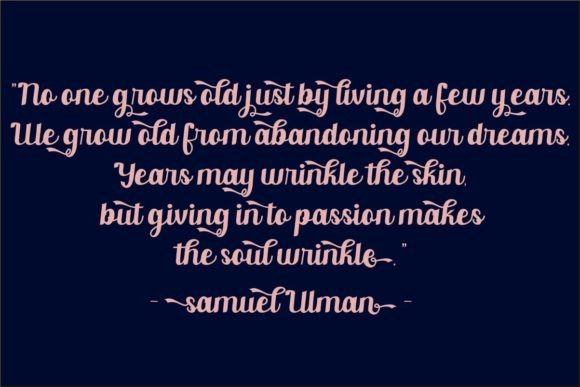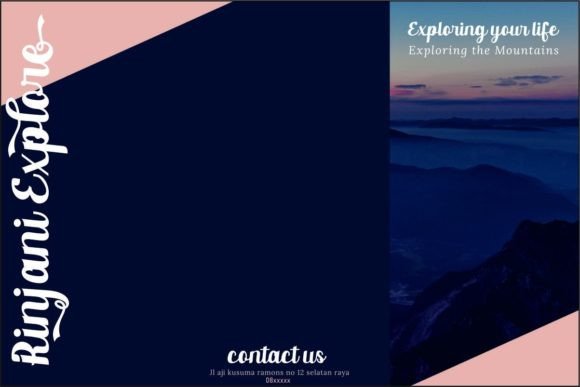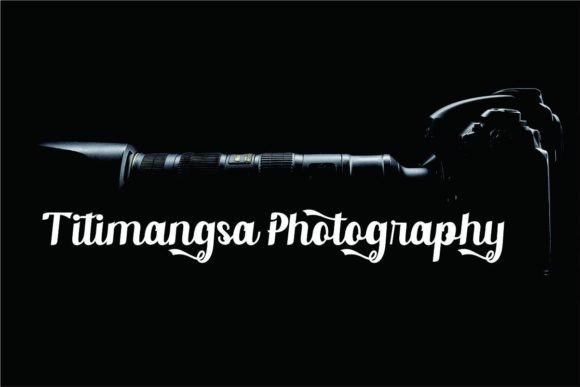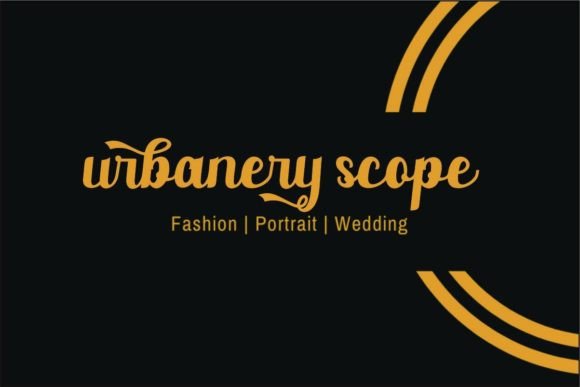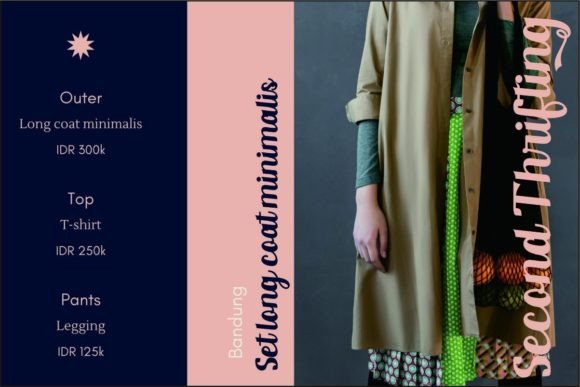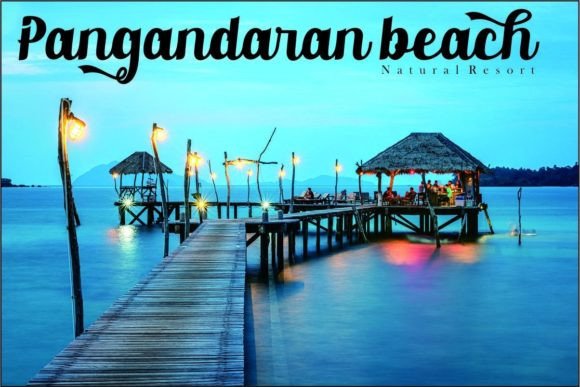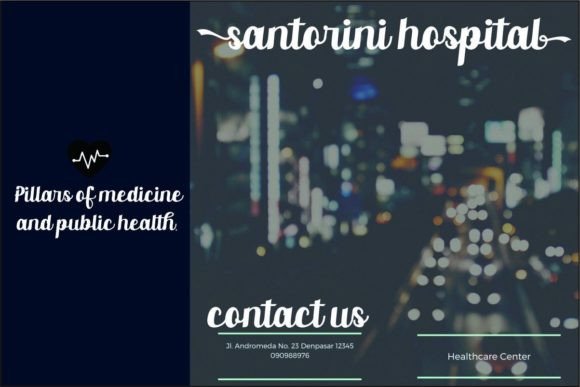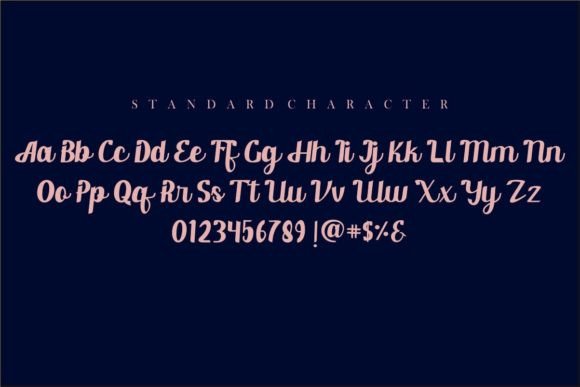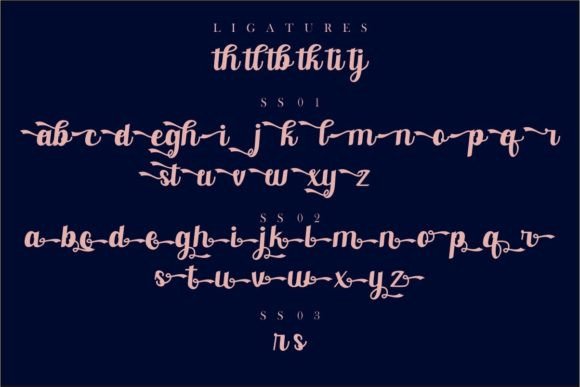
Enthusiastic Font
Enthusiastic is a stunning and bold script font that exudes beauty and charisma. Tailored for a wide array of applications, it serves as the perfect choice for logos, branding, titles, social media posts, advertisements, product packaging, product designs, labels, photography, watermarks, special events, magazines, web design, and beyond. This font, with its bold and expressive strokes, is designed to make a powerful visual impact across various creative endeavors.
The boldness of Enthusiastic sets it apart, making it particularly suitable for creating attention-grabbing designs. Whether you’re working on a striking logo or crafting impactful social media posts, the font’s strong presence ensures that your message is delivered with confidence and flair.
Enthusiastic’s script style adds a touch of elegance and personality to your designs. The beautiful curves and flowing lines make it a versatile choice for projects that require a balance between boldness and sophistication. It’s a font that doesn’t just convey information; it tells a visual story with style.
The inclusion of PUA encoding is a valuable feature of Enthusiastic. This encoding allows easy access to the font’s extensive range of glyphs and swashes, enhancing your creative freedom. With a simple process, you can unlock and utilize a variety of characters and decorative elements to further customize your designs.
From product packaging to event promotions, Enthusiastic adapts seamlessly to diverse design needs. Its bold and beautiful nature makes it a standout choice, ensuring that your visuals leave a lasting impression. Embrace the versatility of Enthusiastic, and let its bold script bring a dynamic and captivating touch to your creative projects.